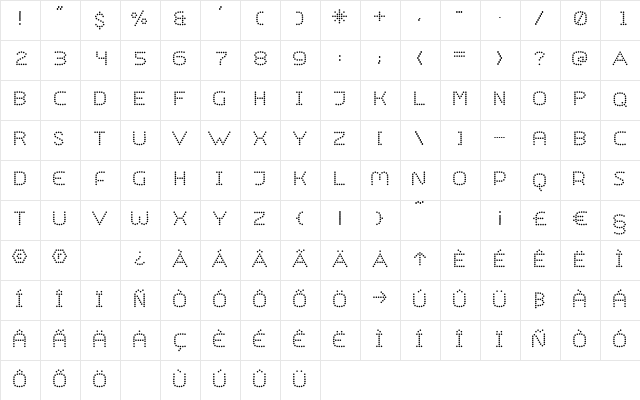
Perform Regular
Perform takes a measured approach to typography — its balanced proportions and neutral character make it a reliable workhorse for both digital and print work.